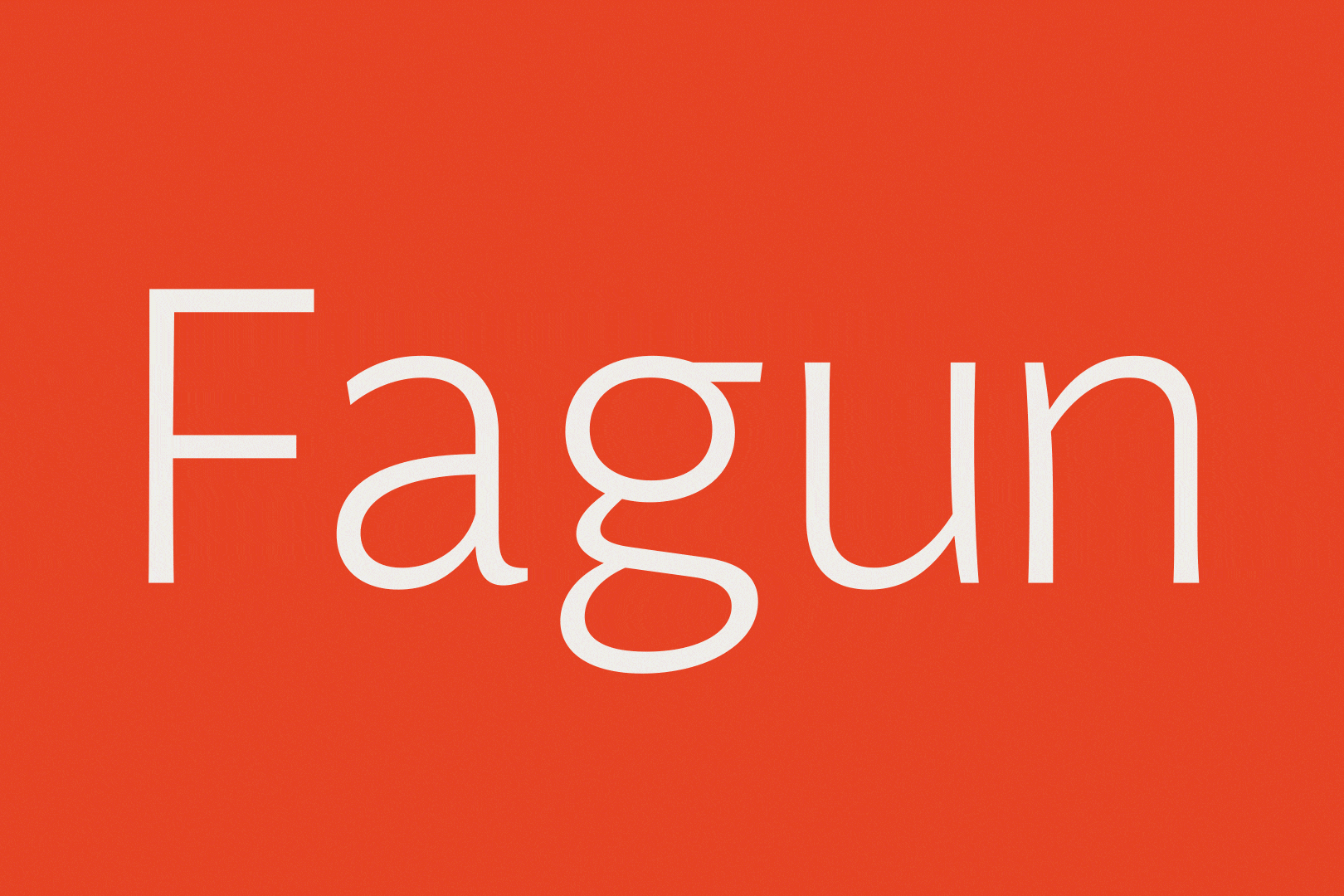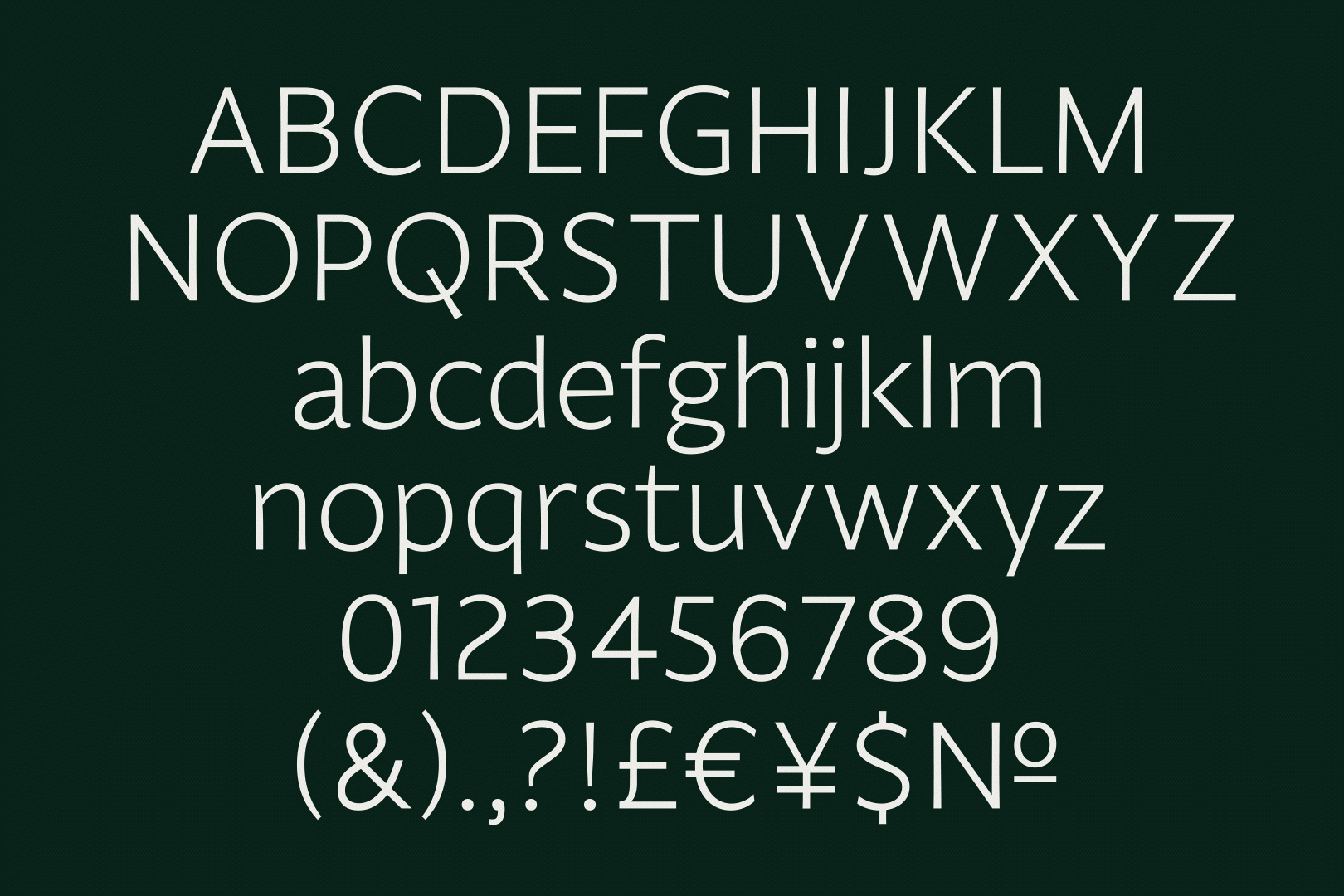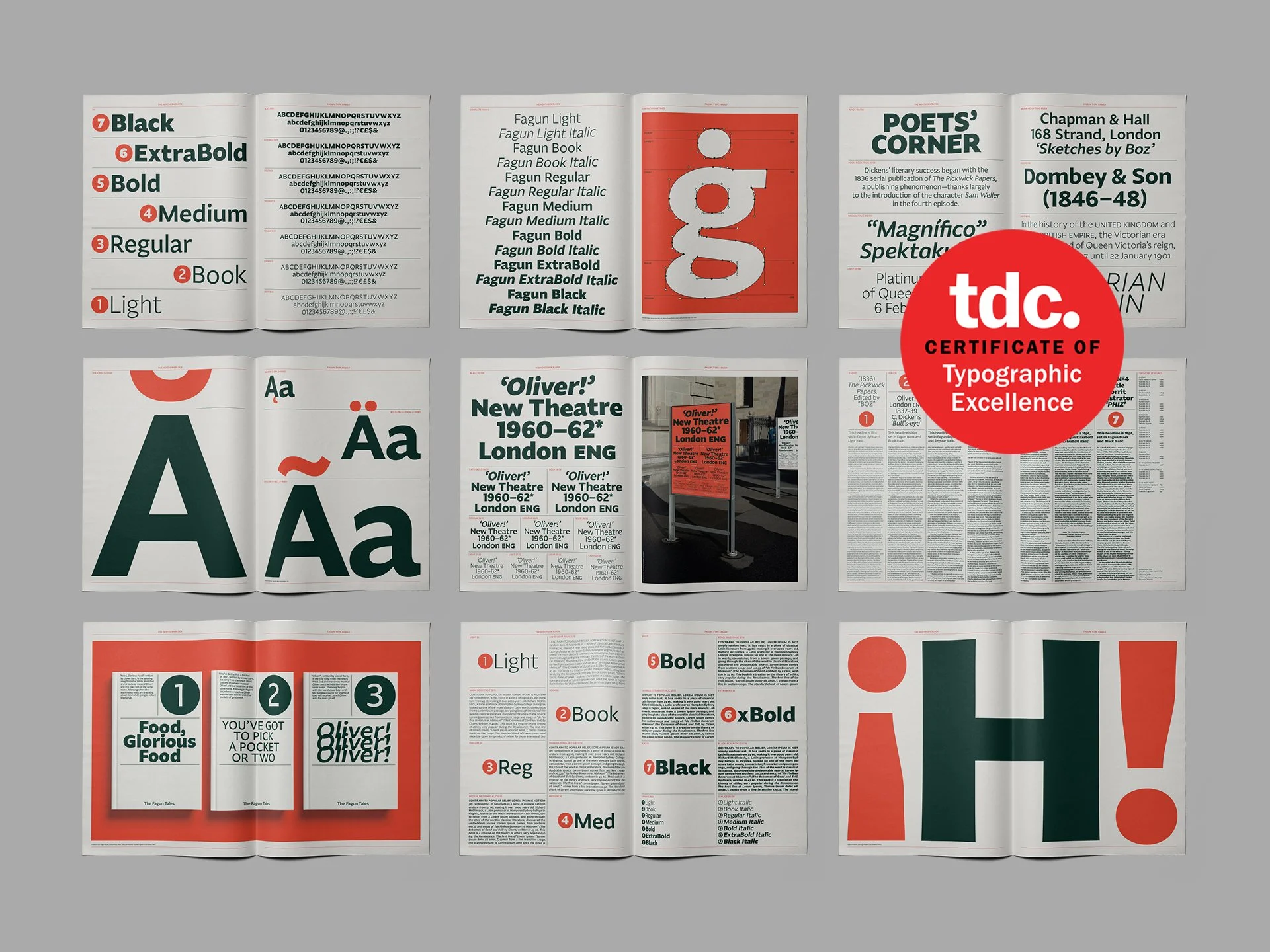
Fagun is a humanist sans-serif with calligraphic roots. The method combines broad nib pen-style strokes with straight-line geometry to form a compelling and coherent typeface suitable for long lines of text. Each character has the right balance of diagonal contrast, which creates a pleasant contradiction between internal and external lines. The result is an original design with incredible clarity and usability across many text-based scenarios.
The font includes over 700 characters per style, seven weights with matching italics. OpenType features consist of nine number variations inferiors, superiors, fractions, tabular, lining, circled, and old style. It also has alternate lowercase a, e, g, l, y, small caps, and language support covering Western, Southern, and Central Europe.
In 2023, Fagun was awarded the Certificate of Typographic Excellence at TDC69.